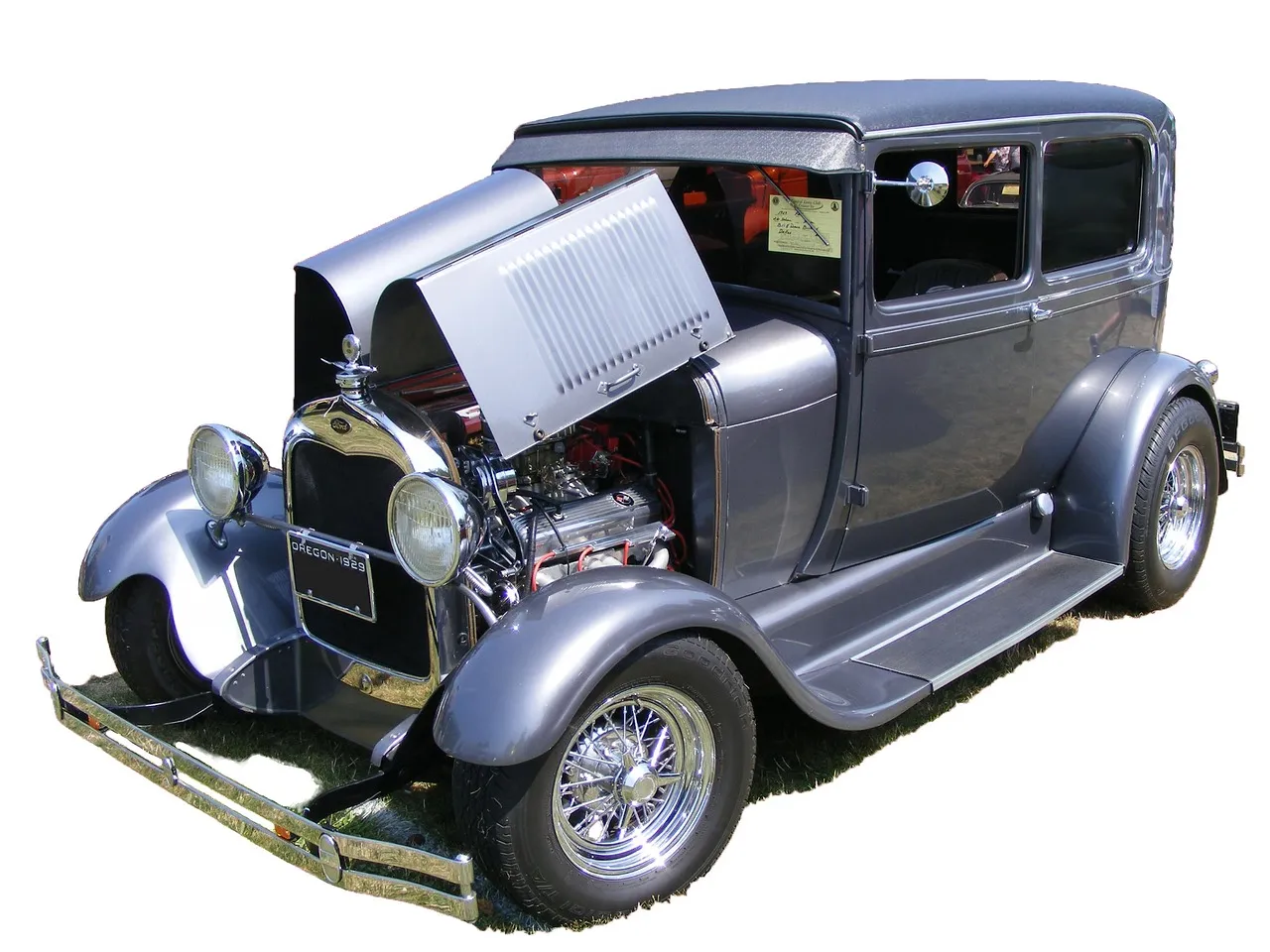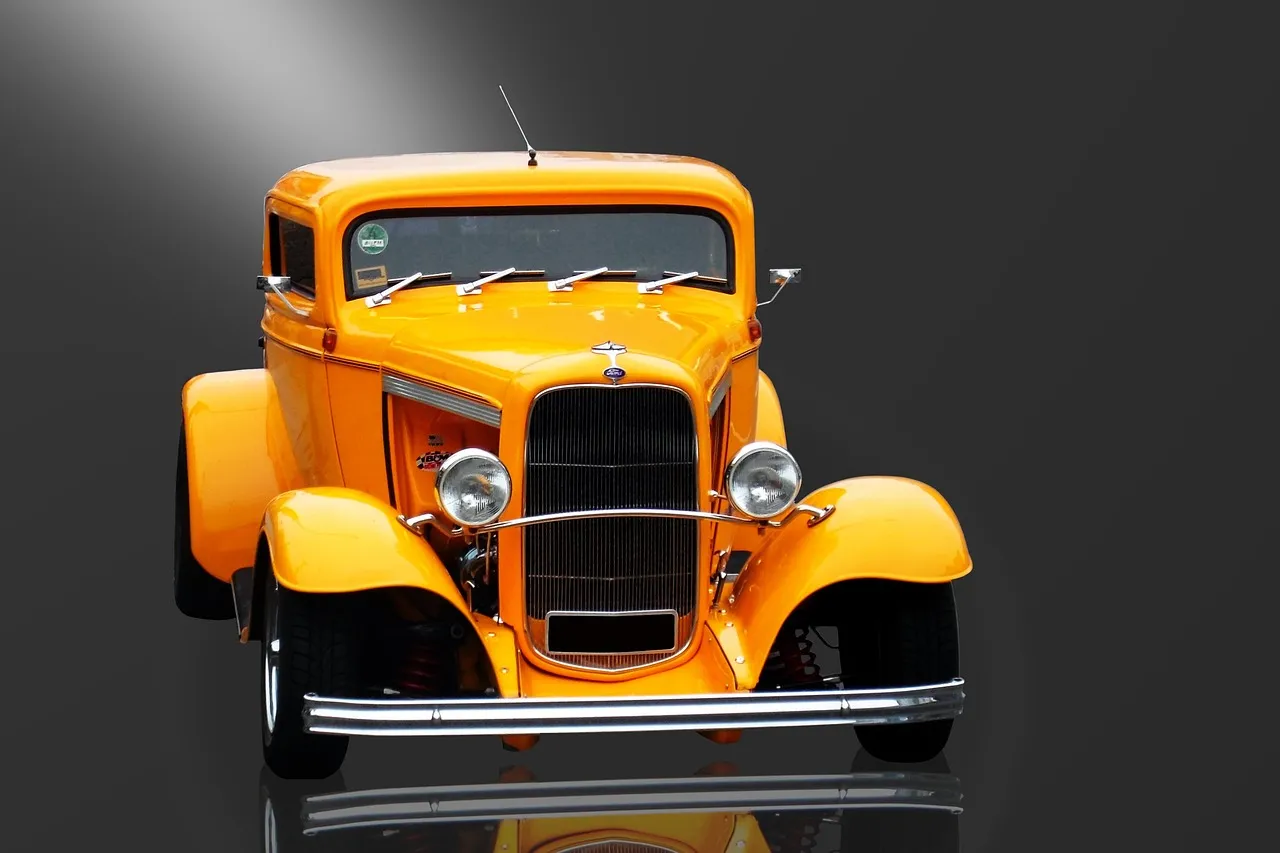
Ford Motor Company, typically called Ford, is an American multinational car manufacturer that has its main head office in Dearborn, Michigan, a residential area of Detroit. It was founded by Henry Ford and integrated on June 16, 1903. The business markets vehicles and industrial automobiles under the Ford brand name, as well as many high-end automobiles under the Lincoln brand name. Ford is the second-largest U.S.-based car manufacturer (behind General Motors) and the fifth-largest worldwide (behind Toyota, Volkswagen, Hyundai-Kia, and General Motors) based on 2015 automobile production. At the end of 2010, Ford was the fifth largest car manufacturer in Europe. Let’s not know about Ford’s logo and Ford’s logo font/ Ford font.
Ford logo
The history of Ford’s logo design dates back to 1903. Since then, many changes have been made to Ford’s logo. But we will only discuss Ford’s current logo in this post. We have given all the pictures of Ford’s logo in the image above to give you an idea.
Ford logo design is a squashed oblong figure made in a number of shades of blue and also white colors. The well-known stylish Henry Ford trademark is installed into the oval. Making use of blue shade in the Ford logo represents strength, quality and also elegance of the firm, whereas the white shade illustrates nobility, elegance and purity. The Ford logo layout has long been identified with the deep royal blue color, which has actually made it world-famous. The lettering got a delicate shadow as well as the history– slope blue, so now it looks alive and vibrant.
Font Used In The Logo
The existing Ford logo is called the “Centennial Blue Oval”, which was released in 2003 in honor of the 100 years birthday. The popular Ford inscription is rendered in a customized font style, which is very comparable to the Ford script typeface.
Ford Script font
Ford script is a beautiful elegant script font inspired by the lettering of ford logo. It looks very much vibrant and eye-catchy. Neville Regular and Fabiola Script are similar to this font. Its usage is widespread in the world of design. The design of the typeface is capable of placing at the top. This highlights any kind of word on the cover page. Not much is known about Ford Font’s license. So it is better to use this font in personal work . You can download ford font right from our website. In addition to Ford fonts, you can also download more interesting fonts for free at our Blog With Joy.
The existing Ford logo is called the “Centennial Blue Oval”, which was released in 2003 in honor of the 100 years birthday. The popular Ford inscription is rendered in a customized font style, which is very comparable to the Ford script typeface.
The Ford Motor Company use Occupant Fonts‘ Antenna, published by Font Bureau. Ford is use this font as their primary corporate typeface. Antenna is a elegant sans serif typeface with 60 styles.